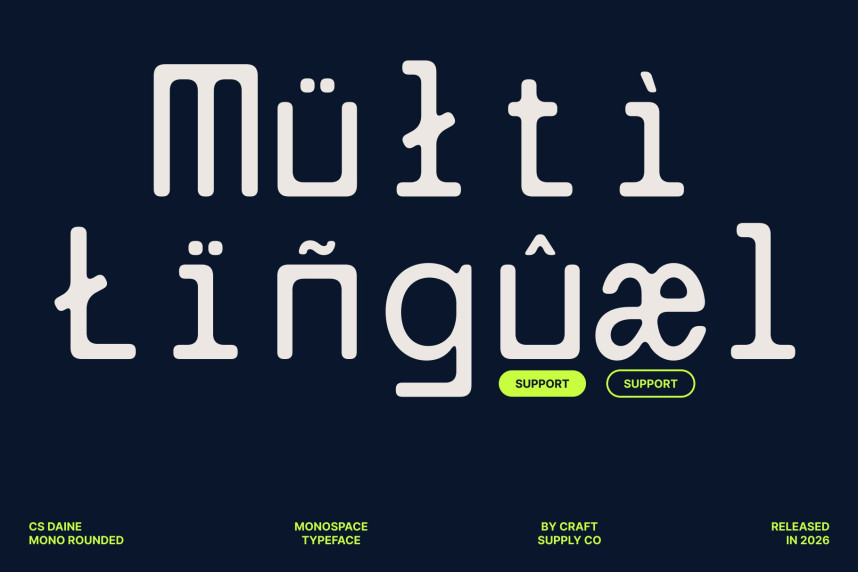
CS Daine Mono Rounded Font
CS Daine Monos Rounded Font – Precision Meets Modern Aesthetics Monospaced Structure with Geometric Clarity. This is a modern sans serif font built on a clean, geometric, and monospaced foundation. Each character is designed with equal width, creating a neat, structured, and perfectly aligned layout. This consistent construction enhances readability and makes it especially effective for technical contexts such as programming, coding, and data presentation.